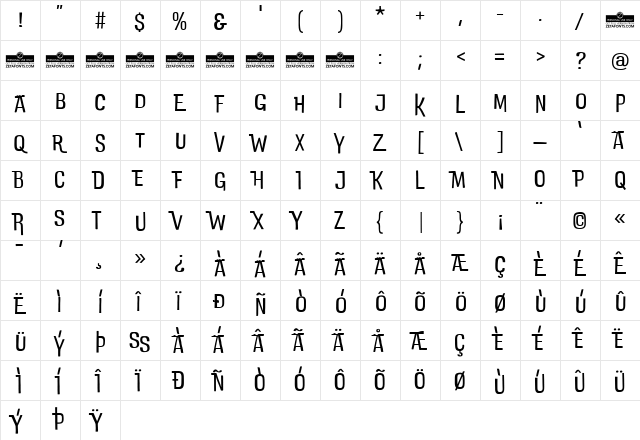
DoubleBass Light Regular
| Foundry | Studio Kmzero & Zetafonts |
| Designer | Cosimo Lorenzo Pancini |
Design Context for DoubleBass Light Typeface
DoubleBass Light takes a measured approach to typography — its balanced proportions and neutral character make it a reliable workhorse for both digital and print work. Its slender proportions lend an understated elegance to any composition.